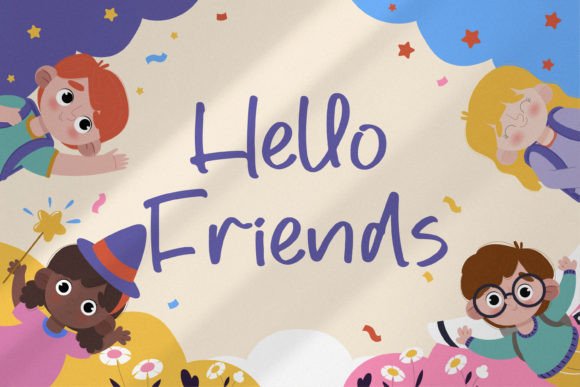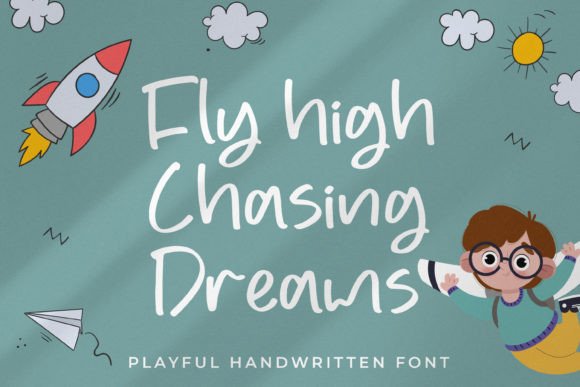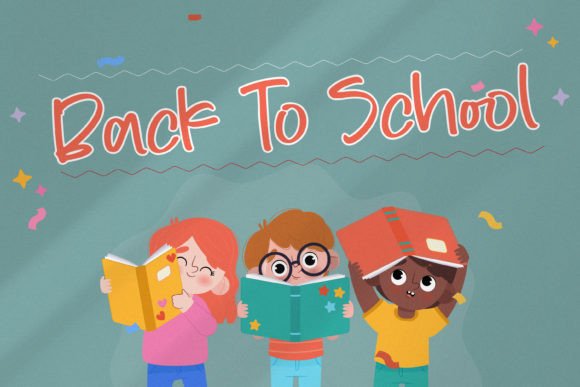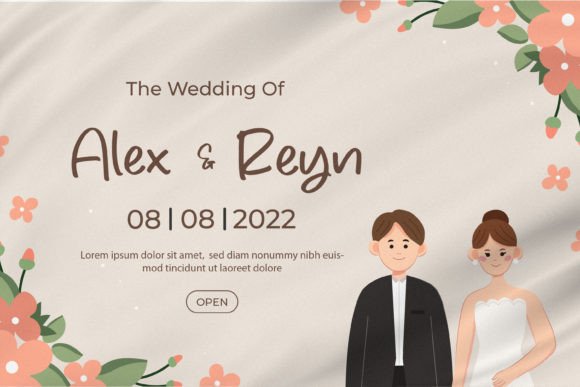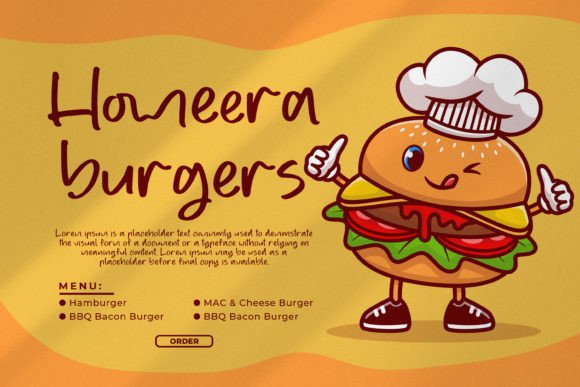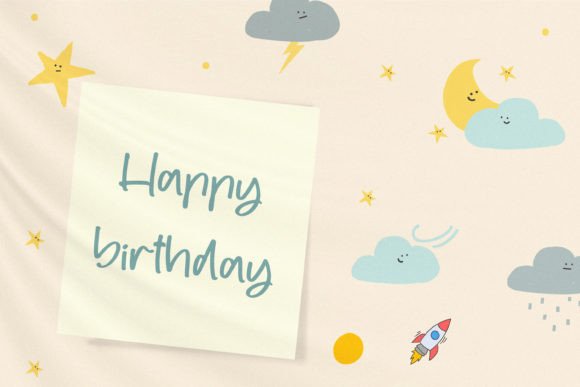
Have you ever been brainstorming a new project, and suddenly, you envision the perfect font to capture the essence of your idea? That’s exactly what happened to me when I stumbled upon the delightful Banetty Font. Its playful handwritten style had me hooked, and I couldn’t wait to experiment with it.
Banetty Font is a charming and lively typeface that’s perfect for adding a touch of whimsy to your designs. Whether you’re creating party invitations, children’s books, or any other project that needs a playful and friendly vibe, this font is sure to bring joy and creativity to your work. As a designer, you’ll appreciate the value of Banetty Font for its ability to evoke a sense of handmade authenticity and add a personal touch to your projects.
Banetty Font Key Features
- Font Family: Banetty is a script font, ideal for creative and elegant typography.
- Unique Characteristics: Features a unique, handwritten feel with subtle flair and elegance, perfect for adding a touch of sophistication to designs.
Banetty Font Review
Overall, I think the Banetty font has some interesting characteristics that could make it a great choice for the right project.
- Unique and modern aesthetic: The Banetty font has a distinctive look that sets it apart from more common fonts.
- Good legibility: The font is clear and easy to read, even at smaller sizes.
- High-quality rendering: The font renders well on a variety of devices and in different contexts.
- Limited font weight options: The font only comes in a few weights, which may limit its flexibility for use in different contexts.
- Not ideal for small text: While the font is legible at larger sizes, it may be too ornate for use in small text, where clarity is essential.
- May not be suitable for all languages: The font’s design may not be optimized for languages that use non-Latin scripts.
The Banetty font is a solid choice for designers looking for a unique and modern aesthetic. However, its limitations may make it less suitable for certain projects or applications. With careful consideration and use, the Banetty font can be a great addition to a design project.
Banetty Font Practical Application Guide
Banetty Font is ideal for creating elegant and sophisticated designs, such as:
- Corporate branding and marketing materials
- Designing menus and restaurant signage
- Creating elegant typography for social media graphics
Tips for Getting the Most Out of Banetty Font
To get the most out of Banetty Font, experiment with different font sizes, styles, and combinations. Use it in conjunction with other design elements to create a cohesive and visually appealing design.
Alternatives to Banetty Font for Designers
Great Vibes is a modern script font perfect for creating elegant and sophisticated designs. It’s ideal for use in wedding invitations, branding, and other high-end materials. Great Vibes is similar to Banetty Font in its cursive nature, but it has a more refined and polished look.
Alex Brush is a handwritten font that exudes warmth and personality. It’s perfect for use in creative projects, such as posters, flyers, and social media graphics. Compared to Banetty Font, Alex Brush has a more whimsical and playful feel, making it ideal for designs that require a touch of personality.
Lobster is a fun and casual script font that’s perfect for use in designs that require a relaxed and friendly tone. It’s ideal for use in social media graphics, blog posts, and other online materials. Compared to Banetty Font, Lobster has a more laid-back and approachable feel, making it perfect for designs that require a casual vibe.